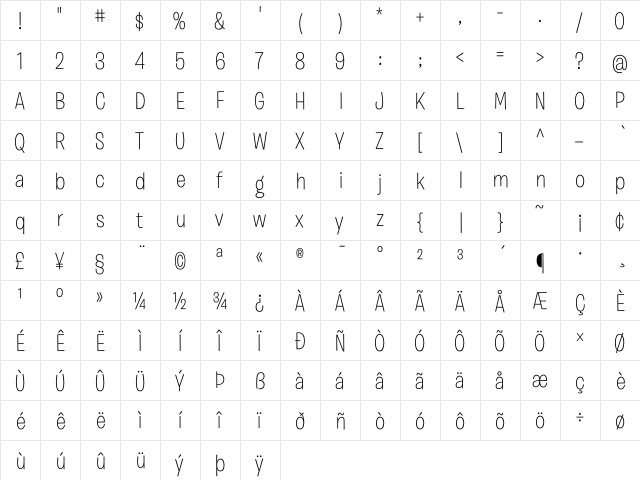
Burbank Big Regular Light
| Foundry | House Industries |
| Designer | Tal Leming |
Design Context for Burbank Big Regular Typeface
Burbank Big Regular is a composed and adaptable typeface that performs quietly and consistently across a wide range of design contexts. The delicate stroke weight brings airiness and refinement to layouts.